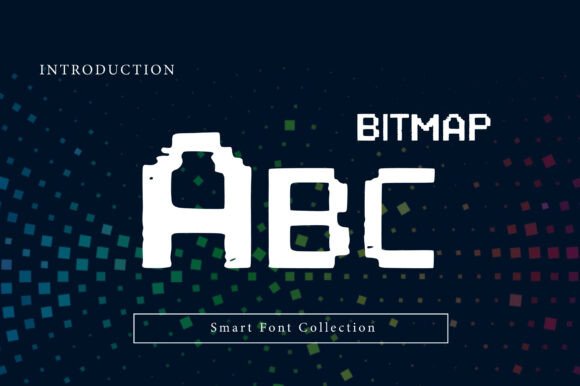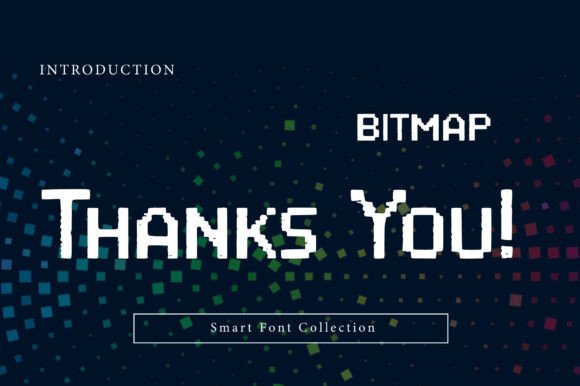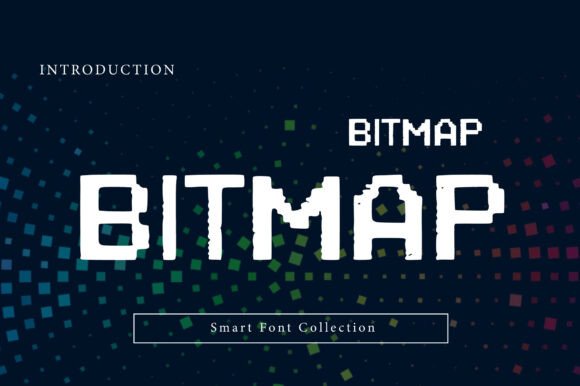
Introducing Bitmap Font: A Retro Display Font with a Digital Edge
In the world of typography, few fonts have managed to capture the essence of retro digital design like Bitmap. This bold, pixel-inspired font is a nod to the blocky shapes and low-resolution aesthetic of classic video games, early computer screens, and 8-bit graphics. If you’re a designer, gamer, or crafty enthusiast looking for a font that delivers a nostalgic, tech-driven character with strong visual impact, Bitmap is the perfect choice.
The Inspiration Behind Bitmap
Bitmap’s design is deeply rooted in the visual language of the digital age. Inspired by the pixelated graphics of early video games, computer screens, and 8-bit technology, this font embodies the spirit of retro-futurism. The result is a bold, eye-catching typeface that’s perfect for a wide range of applications, from gaming projects and posters to logos, tech branding, album covers, and headlines.
Key Features of Bitmap Font
- Pixel-inspired design: Bitmap’s pixelated aesthetic gives it a unique, retro feel that’s perfect for designs that require a digital edge.
- Blocky shapes: The font’s blocky shapes and geometric forms create a bold, graphic look that’s ideal for headlines, titles, and short texts.
- Digital, low-resolution aesthetic: Bitmap’s design is characterized by a deliberate low-resolution aesthetic, which gives it a nostalgic, retro feel.
- Strong visual impact: The font’s bold, pixelated design ensures that your text will stand out and grab attention.
Use Cases for Bitmap Font
Bitmap’s versatility makes it suitable for a wide range of design projects, including:
- Gaming projects: Add a touch of retro gaming charm to your game’s title, logo, or in-game text with Bitmap.
- Posters and flyers: Create eye-catching posters and flyers with Bitmap’s bold, pixelated design.
- Logos and branding: Use Bitmap to create a unique, tech-driven logo or brand identity.
- Tech branding: Bitmap is perfect for tech companies, startups, and gadgets looking for a bold, digital font.
- Album covers: Give your music a retro-futuristic edge with Bitmap’s pixel-inspired design.
- Headlines and titles: Use Bitmap to add a bold, eye-catching touch to your headlines and titles.
- Retro-futuristic designs: Bitmap is ideal for designs that require a nostalgic, retro-futuristic feel.
Tips for Using Bitmap Font
To get the most out of Bitmap, here are some tips to keep in mind:
- Use it boldly: Bitmap is designed to make a statement, so don’t be afraid to use it in bold, eye-catching applications.
- Experiment with colors: Bitmap looks great in bright, bold colors, so don’t be afraid to experiment with different color schemes.
- Mix it with other fonts: Bitmap pairs well with other fonts, so feel free to mix it with other typefaces to create a unique look.
- Pay attention to legibility: While Bitmap is a bold font, make sure to use it in contexts where legibility is not compromised.
Bitmap is a unique, pixel-inspired font that’s perfect for designers, gamers, and crafty enthusiasts looking for a bold, tech-driven typeface. With its blocky shapes, digital aesthetic, and strong visual impact, Bitmap is ideal for a wide range of design projects, from gaming and tech branding to posters, logos, and album covers. Whether you’re looking to add a touch of retro charm or create a bold, eye-catching design, Bitmap is the perfect choice.